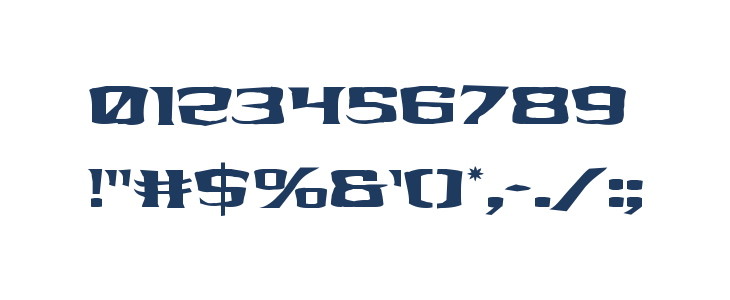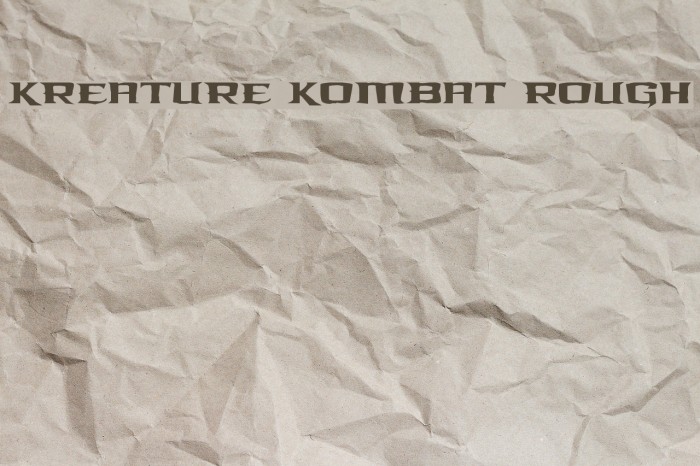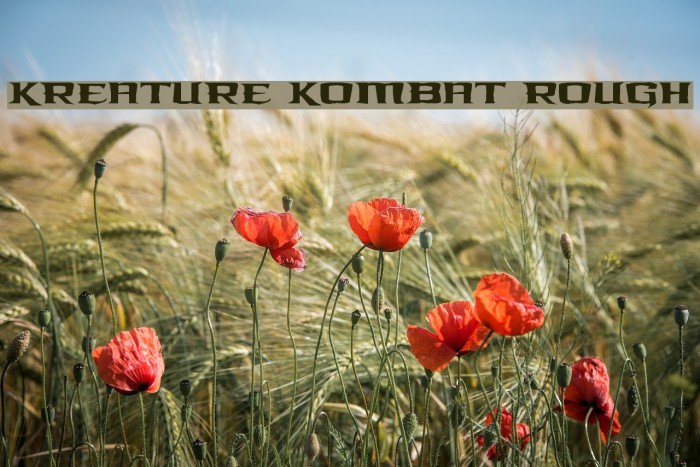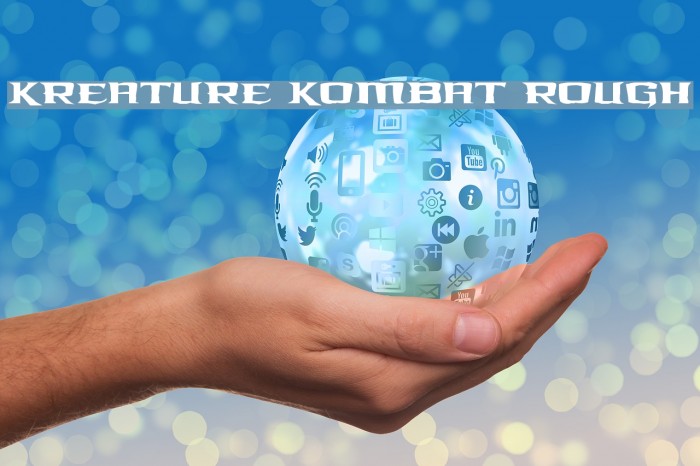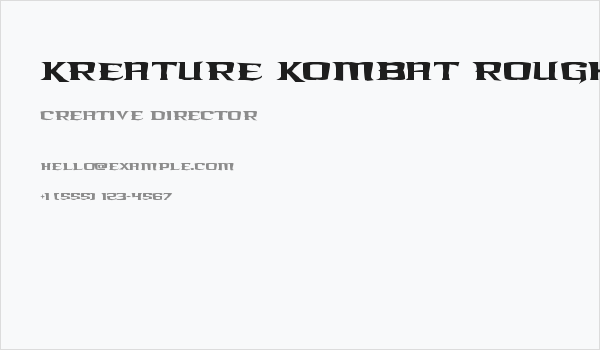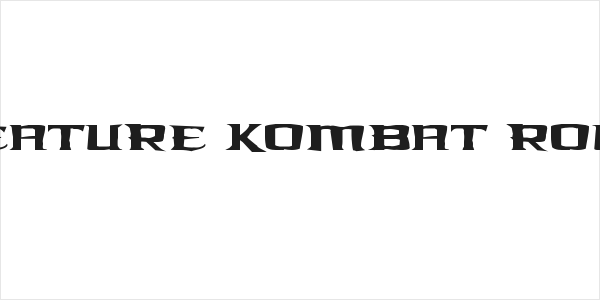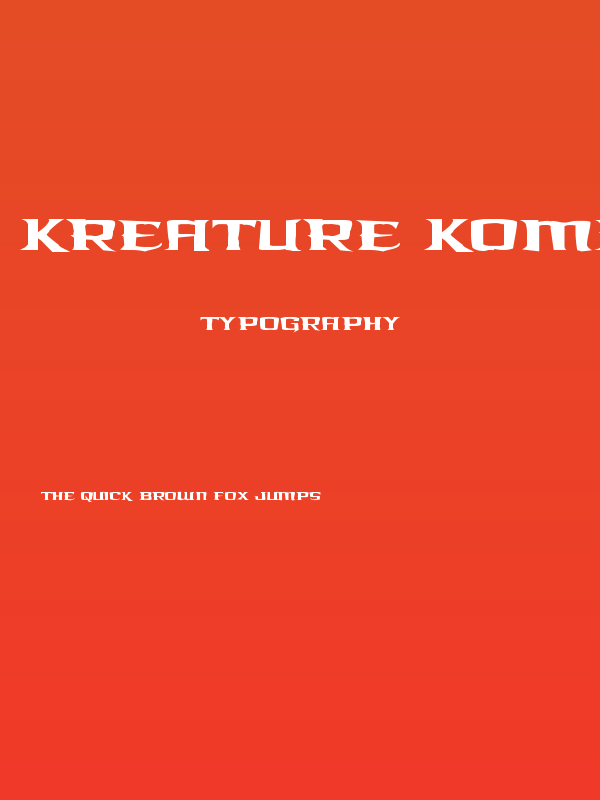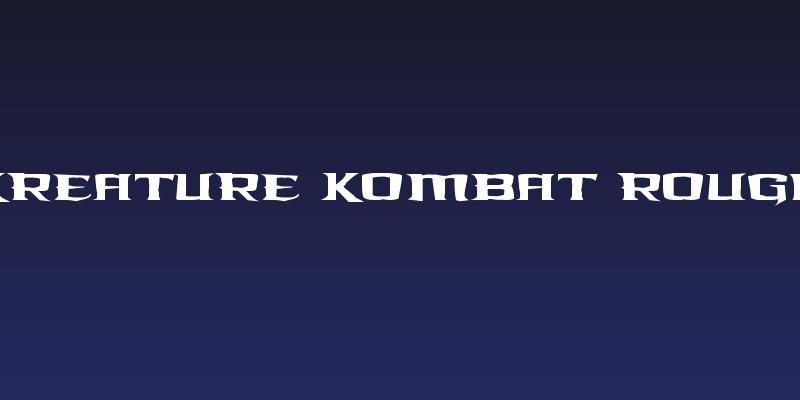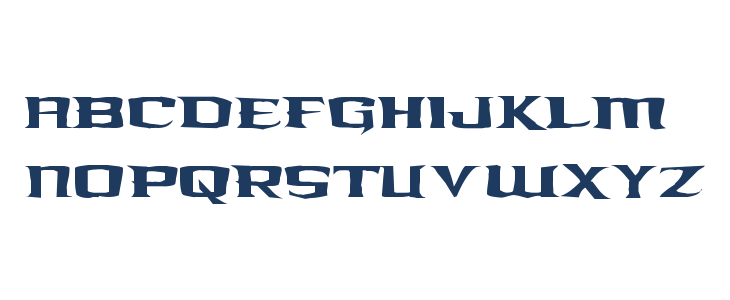
Kreature Kombat Rough Font
Kreature Kombat Rough Description
This font features a bold and aggressive style with sharp, angular edges and a rough texture that gives it a rugged appearance. The characters are designed with a unique, almost tribal aesthetic, making them stand out with their distinct and edgy look. The uppercase and lowercase letters maintain a consistent style, with exaggerated serifs and pointed elements that add to the font's fierce personality. Numbers and special characters are crafted with the same attention to detail, ensuring a cohesive appearance across all glyphs. This font is ideal for projects that require a strong, impactful visual presence.
| Proposed Projects | Ideal for video game titles, movie posters, band logos, and any project requiring a bold, edgy aesthetic. |